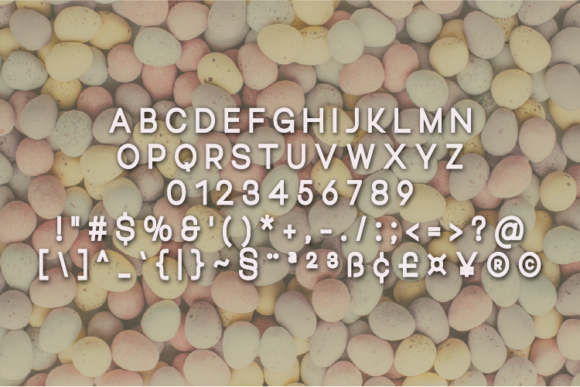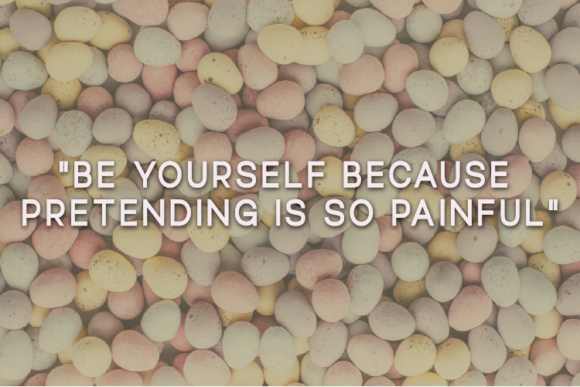
Introducing Eggster Font: The Ultimate Sans Serif Solution for Designers and Crafters
In the world of typography, a good font can make all the difference in the success of a design project. Whether you’re a professional designer or a crafty DIY enthusiast, finding the right font can be a daunting task. That’s why we’re excited to introduce Eggster Font, an all-caps sans serif font that’s versatile, clean, and perfect for a wide range of applications.
What is Eggster Font?
Eggster Font is an all-caps sans serif font that’s designed to be used in just about any context. Its smooth and clean lines, combined with a touch of contrast, make it perfect for logos, branding, and web headings. The font’s sleek and modern aesthetic is sure to grab attention and leave a lasting impression.
Key Features of Eggster Font
- All-caps design: Eggster Font is designed specifically for use in all-caps, making it perfect for titles, headings, and logos.
- Sans serif: The font’s sans serif design gives it a clean and modern look that’s perfect for digital applications.
- Smooth and clean lines: Eggster Font features smooth and clean lines that are easy on the eyes and perfect for reading.
- Touch of contrast: The font’s subtle contrast adds depth and visual interest, making it perfect for use in a variety of design contexts.
- Versatile: Eggster Font is versatile and can be used in a wide range of applications, from logos and branding to web headings and more.
Why Choose Eggster Font?
So why choose Eggster Font over other fonts on the market? Here are just a few reasons:
- Unique aesthetic: Eggster Font has a unique and distinctive aesthetic that’s sure to set your design apart from the crowd.
- High legibility: The font’s clean and simple design makes it highly legible, even at small sizes.
How to Use Eggster Font
Eggster Font is perfect for a wide range of design applications, including:
- Logos and branding: Use Eggster Font to create a unique and memorable logo for your business or brand.
- Web headings: Eggster Font is perfect for use in web headings, adding a touch of style and sophistication to your website.
- Print design: Use Eggster Font in print design applications, such as brochures, flyers, and posters.
- Crafting: Eggster Font is perfect for crafters, and can be used to create custom signs, labels, and more.
Tips and Tricks for Using Eggster Font
Here are a few tips and tricks for getting the most out of Eggster Font:
- Experiment with different colors: Eggster Font looks great in a variety of colors, so don’t be afraid to experiment and find the perfect hue for your design.
- Use it with other fonts: Eggster Font pairs well with other fonts, so try using it in combination with other typefaces to create a unique look.
- Play with size and scale: Eggster Font looks great at a variety of sizes, so experiment with different sizes and scales to find the perfect fit for your design.
Eggster Font is a versatile and stylish sans serif font that’s perfect for designers and crafters on the go. With its smooth and clean lines, touch of contrast, and all-caps design, Eggster Font is sure to become a go-to font in your design arsenal. So why wait? Download Eggster Font today and start creating stunning designs that are sure to impress!